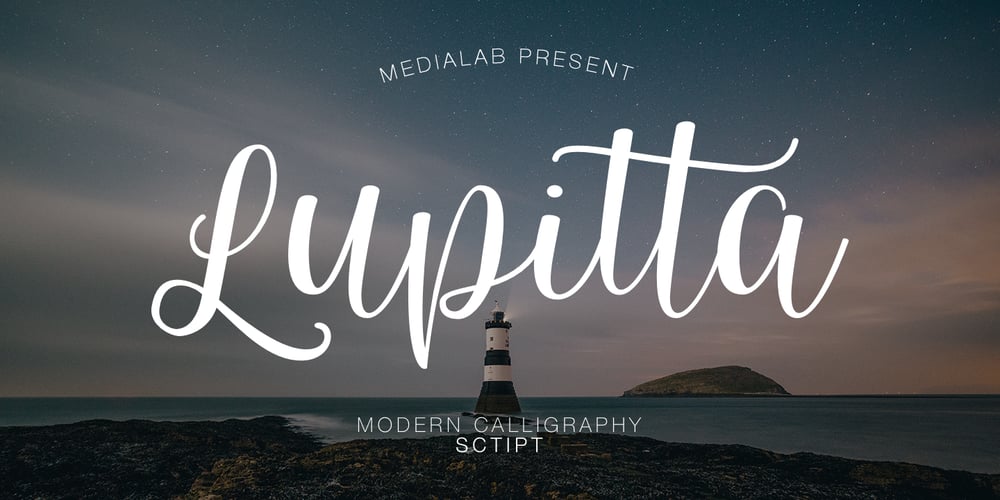
Lupitta
Lupitta font
Lupitta Font Family was designed by Dmitrii Chirkov and published by Supfonts. Lupitta contains 4 styles and family package options. Lupitta is amazing lettering font, every single letters have been carefully crafted to make your text looks beautiful. With lettering script style this font will perfect for many different project ex: quotes, blog header, poster, wedding, branding, logo, fashion, apparel, letter, invitation, stationery, etc.